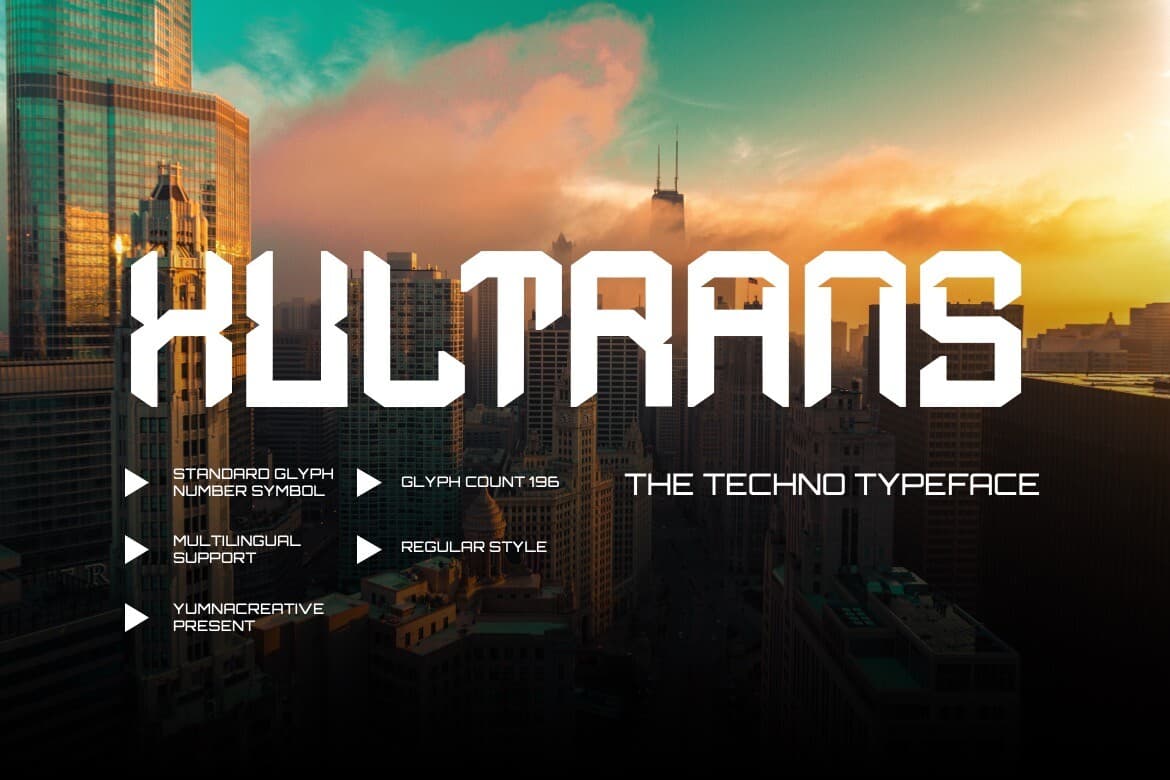
Discover the Xultrans Font: A Blend of Techno Vibes and Typography In the world of design, finding the perfect font can be as exhilarating as the pulsing beat of a techno track, and that’s exactly what the Xultrans Font embodies. Inspired by the ener...